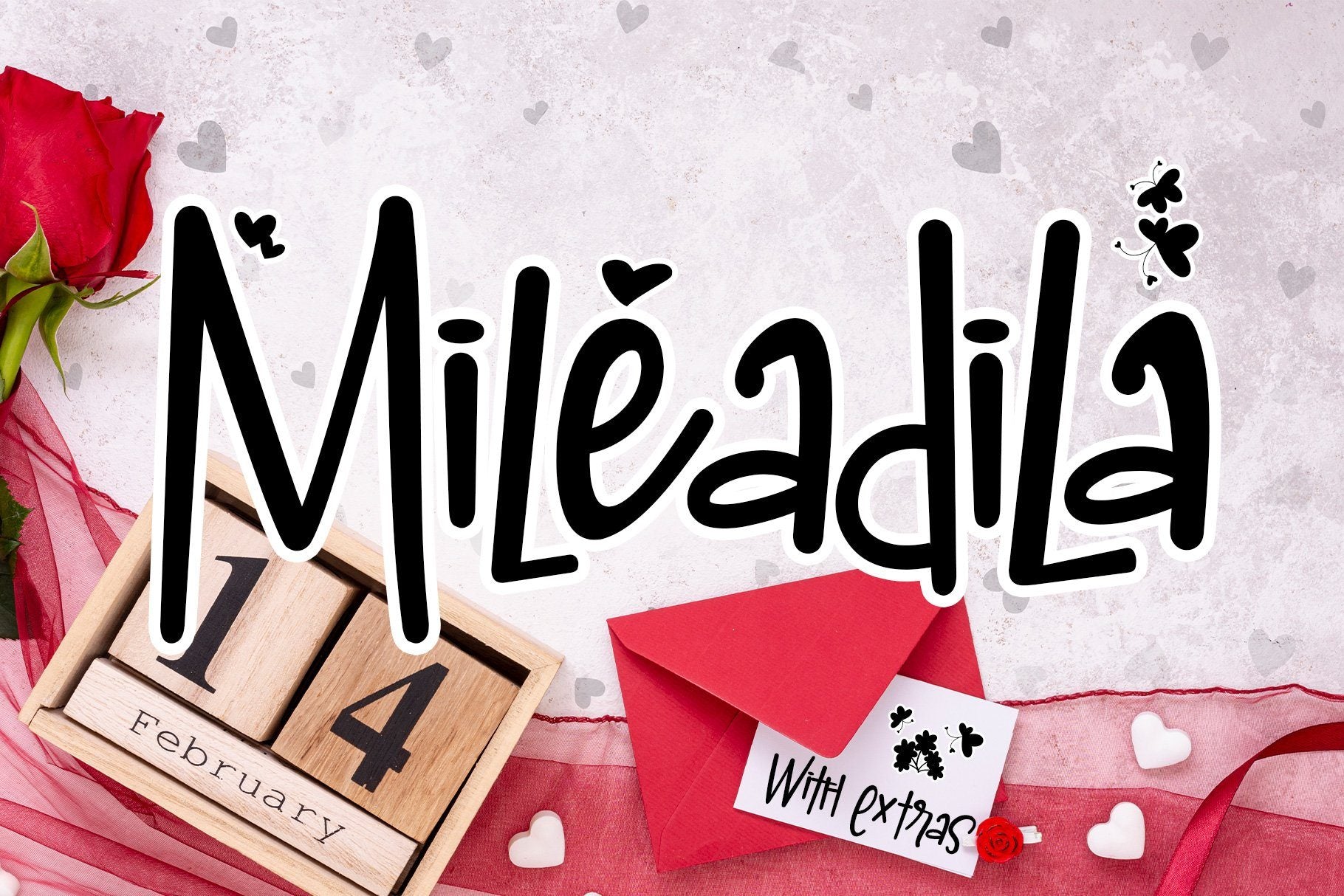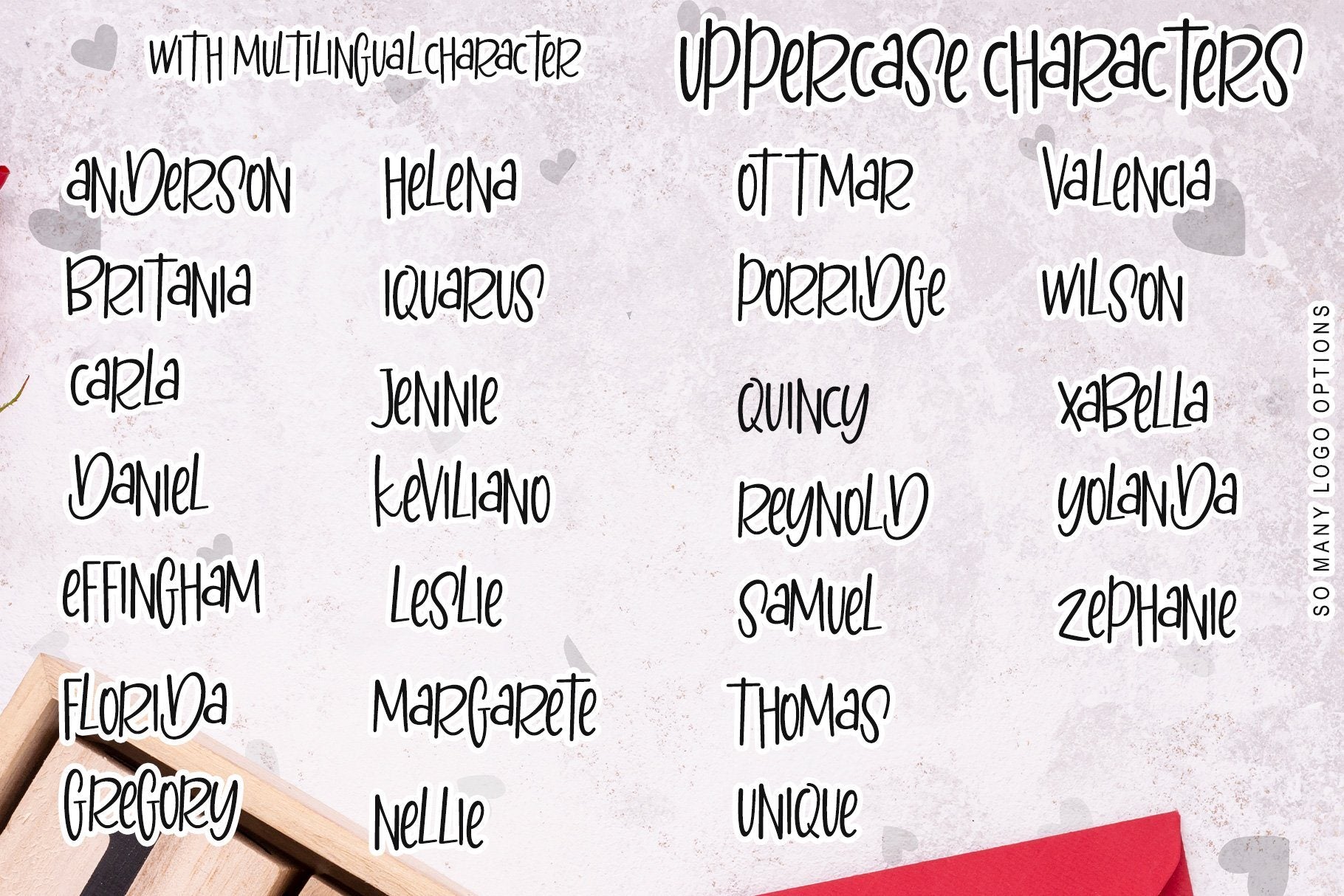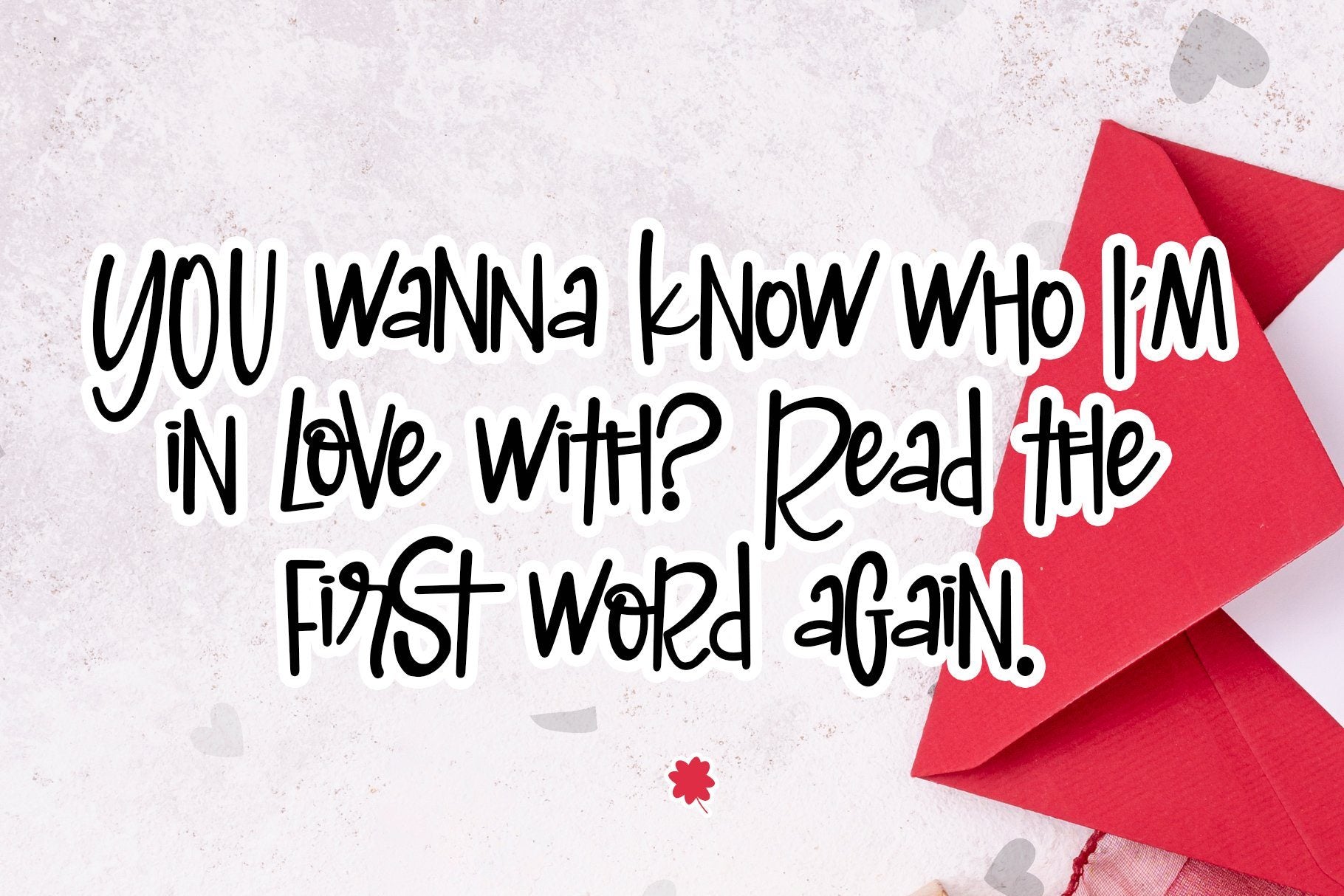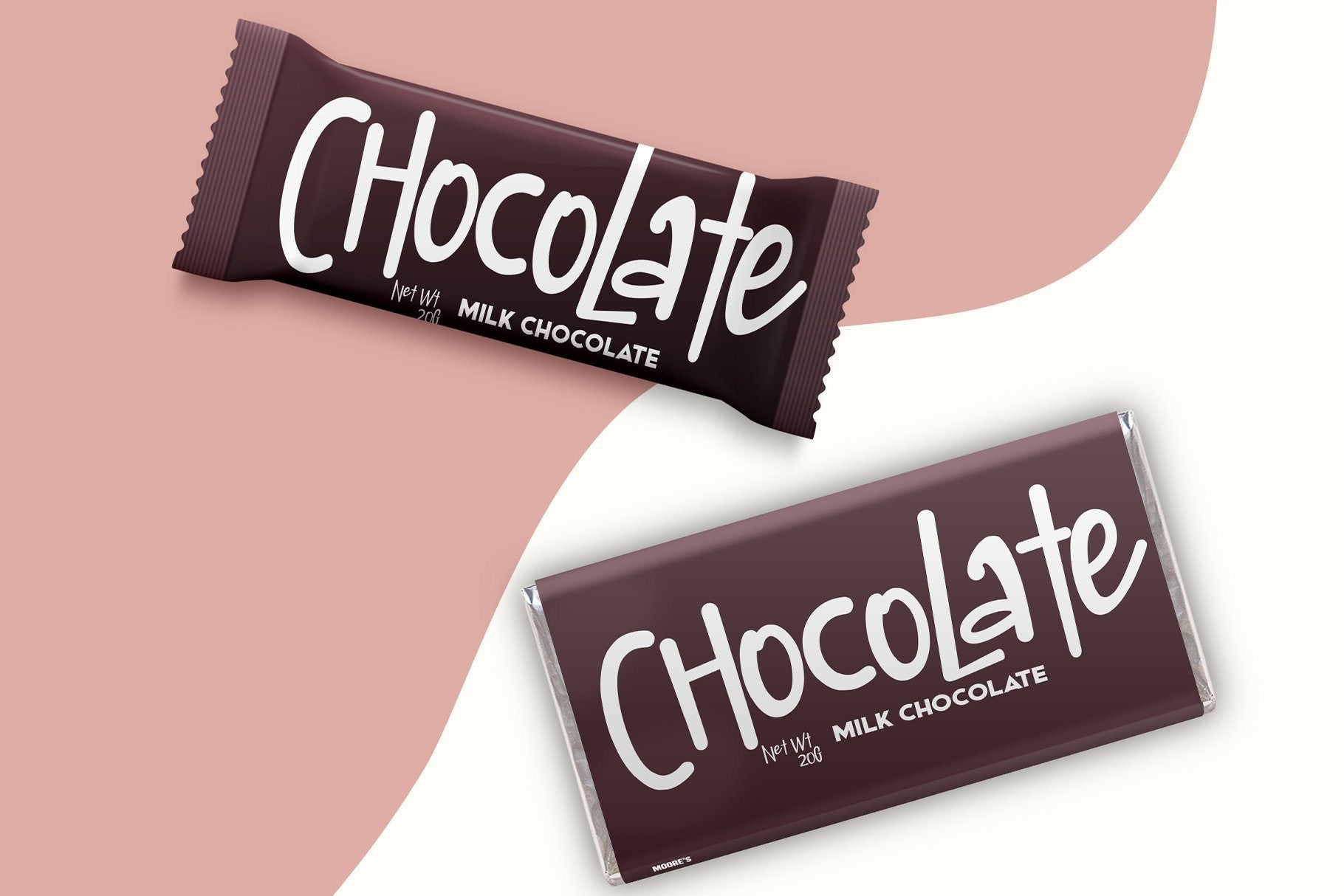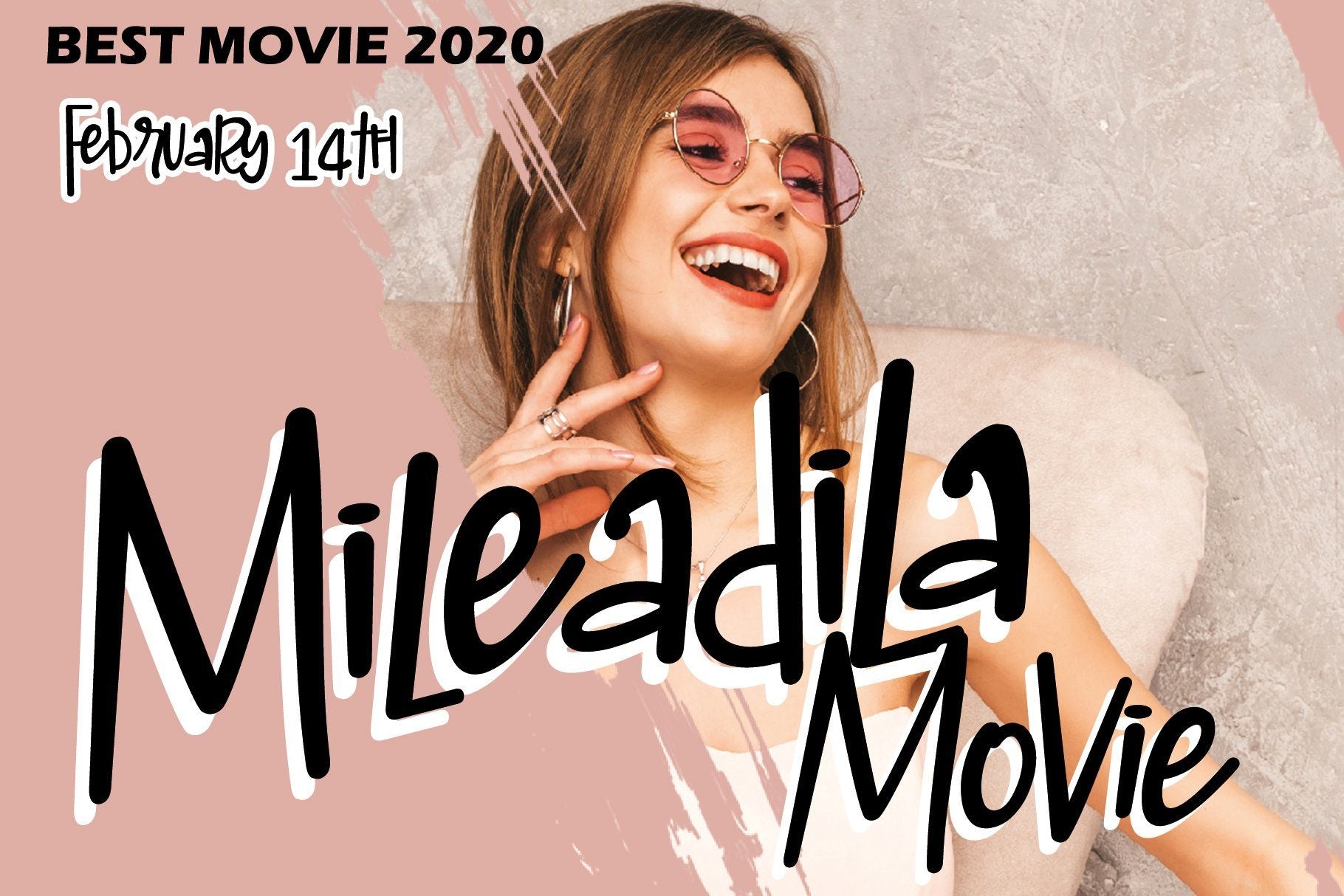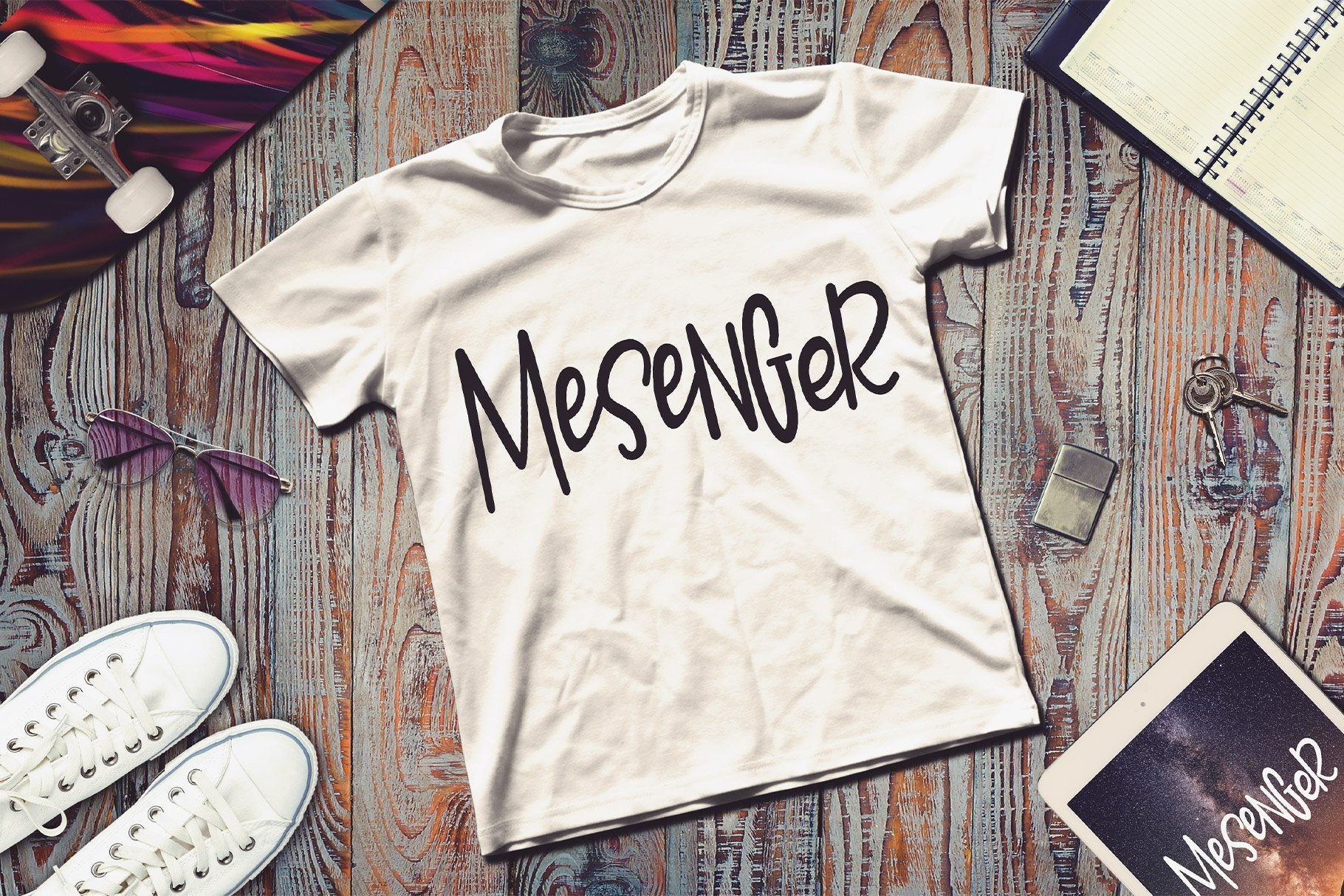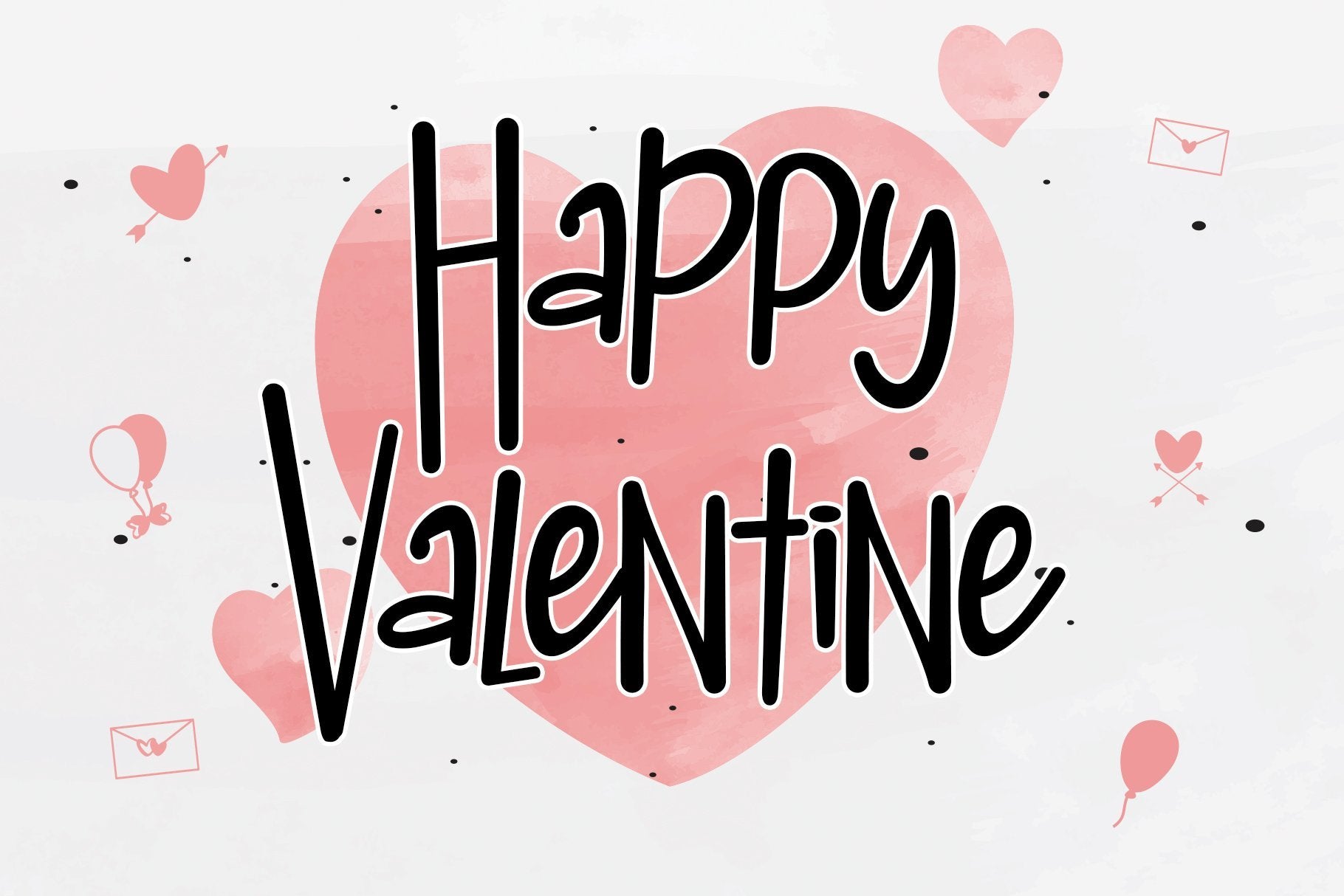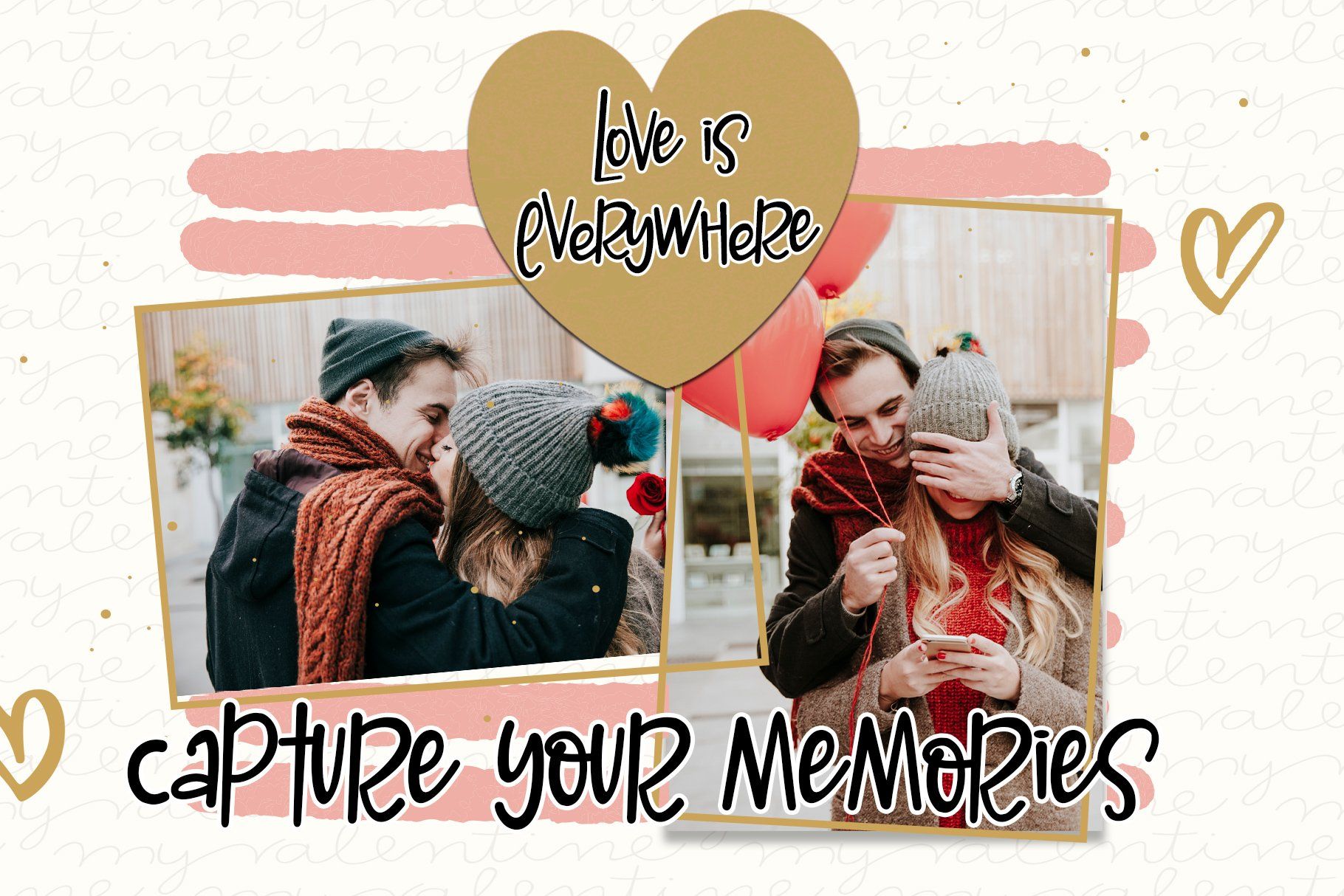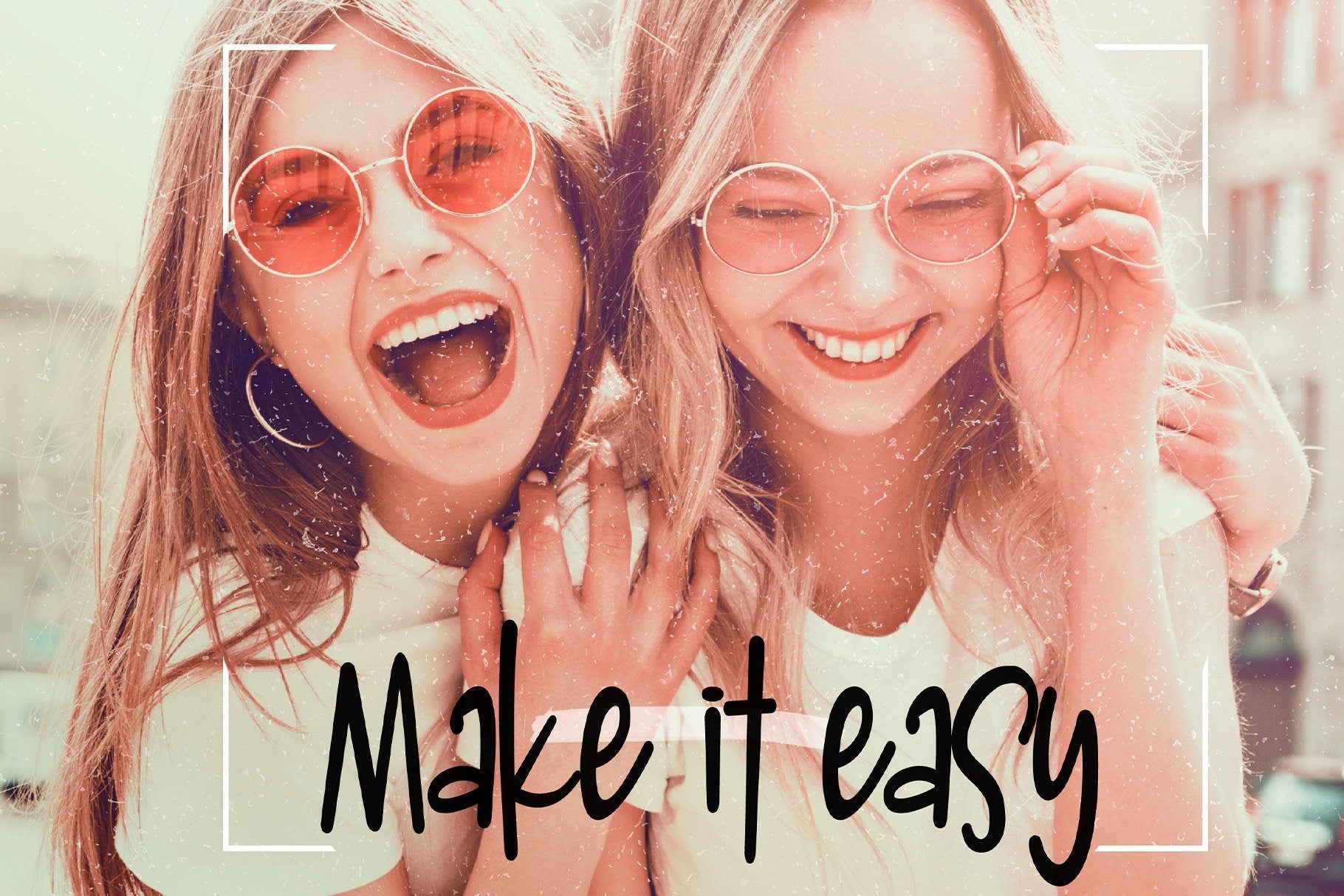
Mileadila
About Mileadila
Mileadila is a sweet and simple display font that’s perfect for adding a romantic charm to your next Valentine’s day project and that will turn any design project into a true standout.  Get inspired by its unique look FEATURES: Mileadila (TTF, OTF & WOFF) Works both on Mac & PC Simple installations Many Ligature Many Extras Support Silhouette Accessible in the Adobe Illustrator, Adobe Photoshop, Adobe InDesign, CorelDraw, even work on Microsoft Word. Support multilingual; ä ö ü Ä Ö Ü ß ¿ ¡ To access the alternate glyphs, you need a program that supports OpenType features such as Adobe Illustrator CS, Adobe Photoshop CC, Adobe Indesign, and CorelDraw. More information about how to access alternate glyphs, check out this link  ( http://goo.gl/ZT7PqK ) To stay up to date for my latest job, follow me and let’s be friends because there will be many promos. Our other products : BEST SELLER BEAUTIFUL KISSES ANGELIN GAMOS HERTINA JENNIE ANTIKA AURORA BLACK PINK SIGNATURE California Street BESTOWENS FAMILY